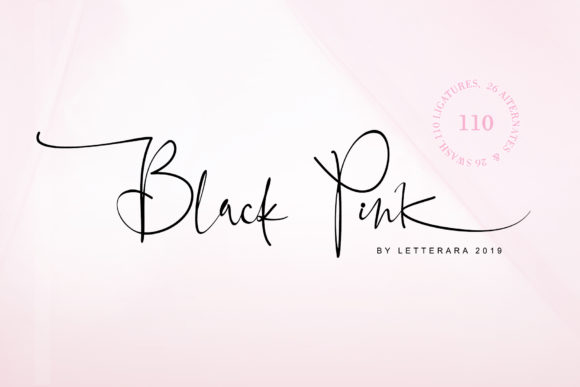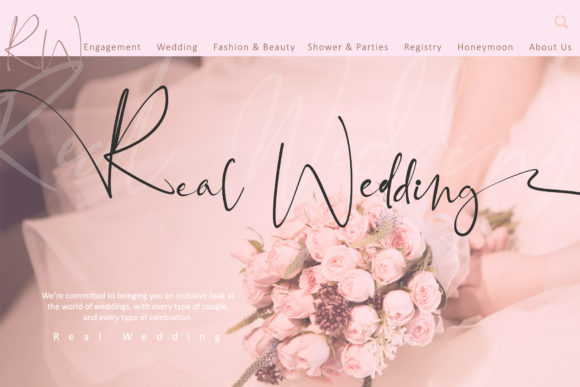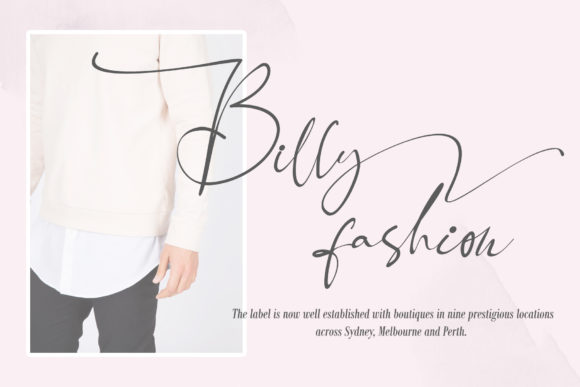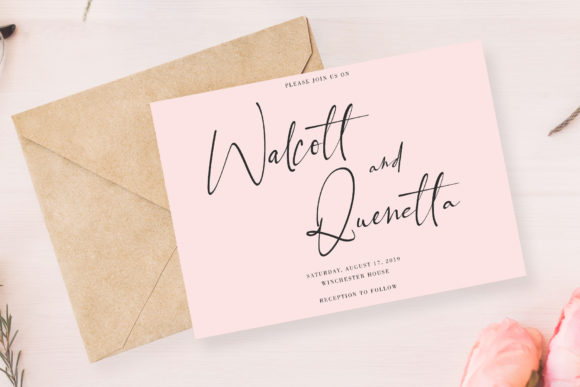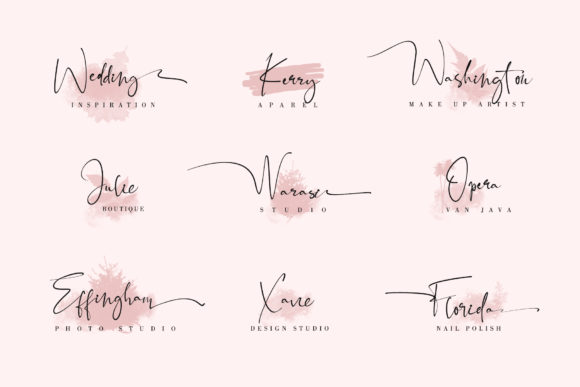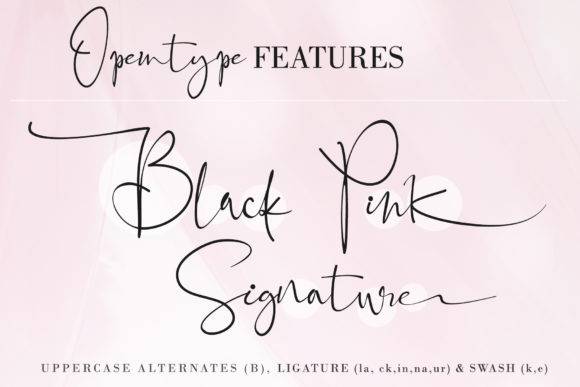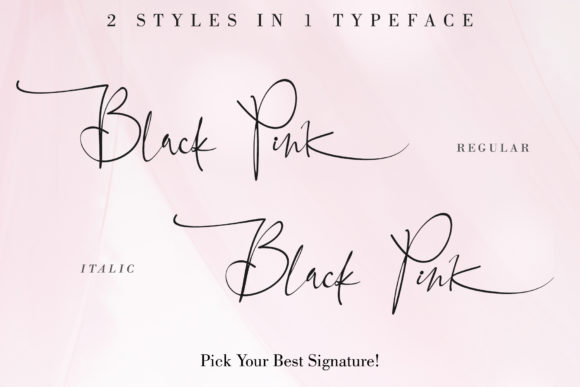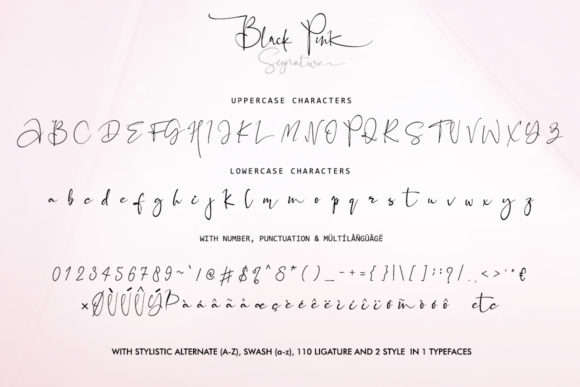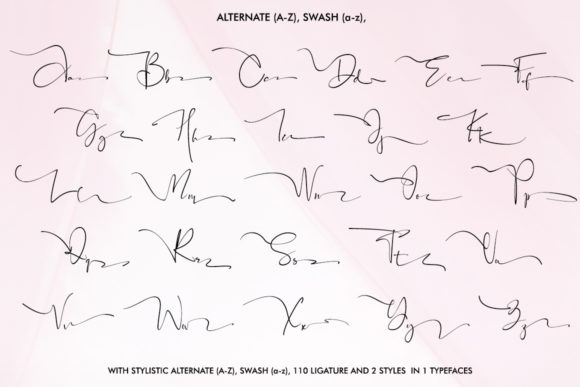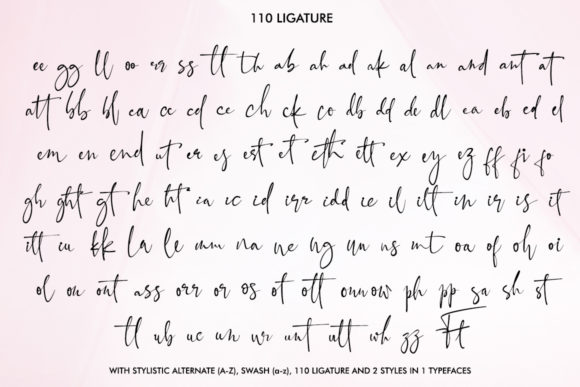
Black Pink Family Font
About Black Pink Family Font
The Black Pink is a beautiful calligraphy family. It’s perfect for adding a luxurious touch to your logos, packagings, wedding stationary, websites, and every other designs which need a handwritten feel.
This family includes 4 styles which can be combined perfectly. Giving you the opportunity to create multiple unique designs in an instant.